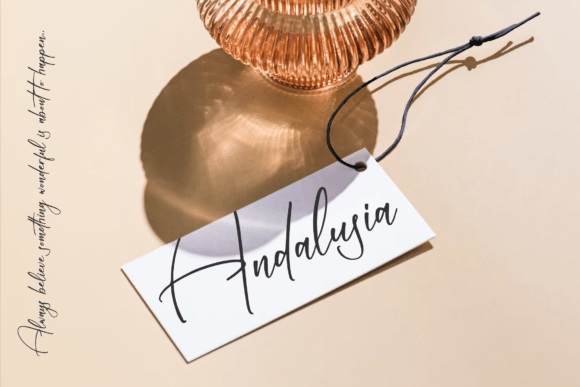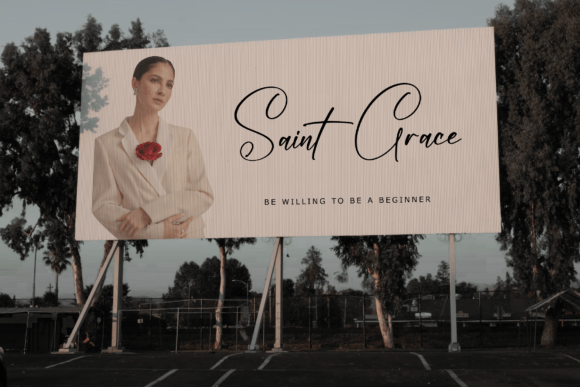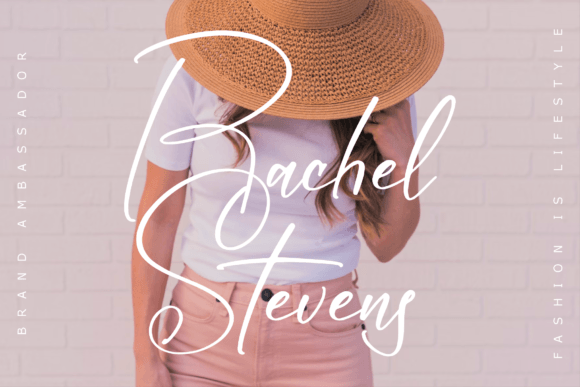
The Alnathasia Font: A Modern Handwritten Gem for Your Creative Projects
Have you ever been in the middle of a design project, and suddenly, you just can’t seem to find the right font? I recall a particularly frustrating experience while working on a branding project for a boutique client. The brief required a unique, handwritten font that would capture the essence of their luxury products. After hours of scouring through font libraries, I stumbled upon Alnathasia – a modern handwritten font from Letterfabric Studio. It was love at first sight! 💕
An Honest Review of Alnathasia Font
What I Love About Alnathasia ✨
- 💫 Elegant and modern handwritten style, perfect for high-end branding projects
- 🎨 Versatile and adaptable to various design applications, from logos to product packaging
- 🔥 Unique character set, including stylistic alternates and OpenType features
While Alnathasia is an exceptional font, there are a few minor limitations to consider:
- ⚠️ Limited availability of Cyrillic or non-English language support
The Backstory of Alnathasia
Alnathasia was designed by Letterfabric Studio, a team of passionate typographers and designers. According to their story, Alnathasia was inspired by the beauty of handwritten scripts and the need for modern, elegant fonts in the design world. The font’s name, Alnathasia, is derived from a combination of the words “alnath,” meaning “noble” or “elegant,” and “asia,” suggesting a connection to the Asian continent. 🌏
Q: Is Alnathasia suitable for body text?
A: While Alnathasia is an elegant and legible font, it’s primarily designed for display purposes, such as headings and titles. For body text, you may want to consider a more traditional serif or sans-serif font.